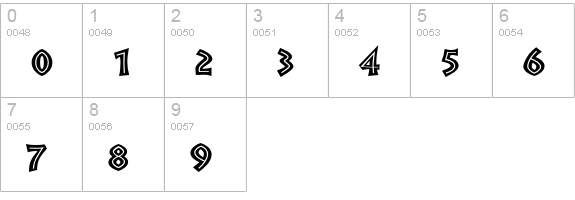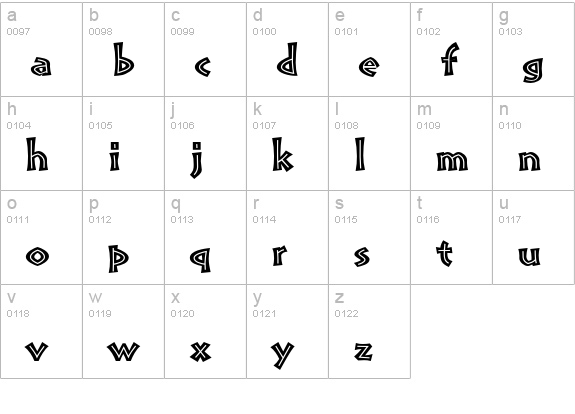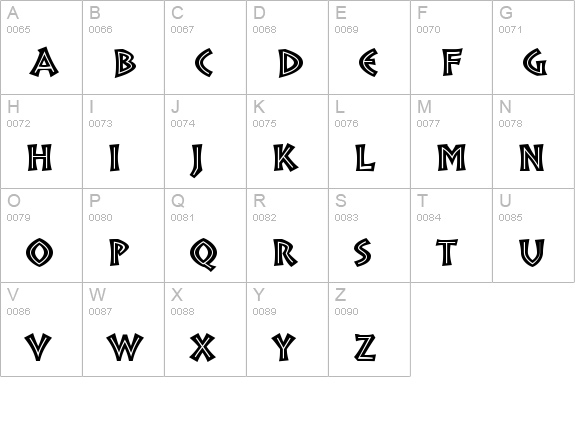
Pompeia Std Inline Font Details
Pompeia Std Inline font is a stunning display typeface that exudes elegance and sophistication. Its intricate inline design adds a touch of vintage charm to any project, making it perfect for branding, packaging, and editorial designs. With its delicate curves and graceful lines, Pompeia Std Inline brings a sense of timeless beauty to your creations. And the best part? This exquisite font is available for free download at FontsMarket.com! Don't miss out on the opportunity to elevate your designs with the enchanting Pompeia Std Inline font. Download it today and add a touch of class to your projects.